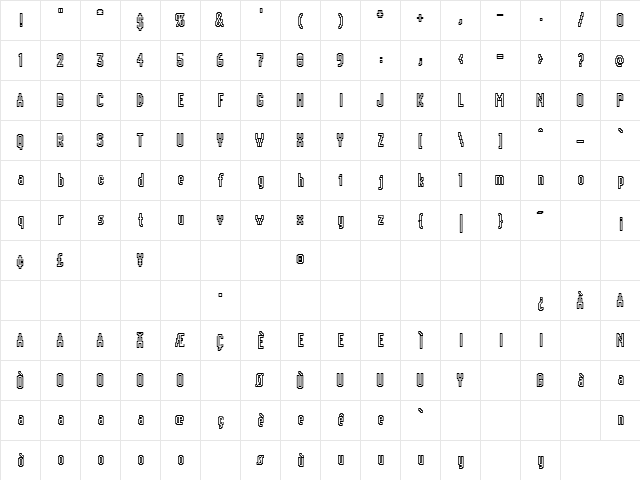
chunk Regular Font Preview
chunk Regular
Design Context for chunk Typeface
chunk takes a measured approach to typography — its balanced proportions and neutral character make it a reliable workhorse for both digital and print work.